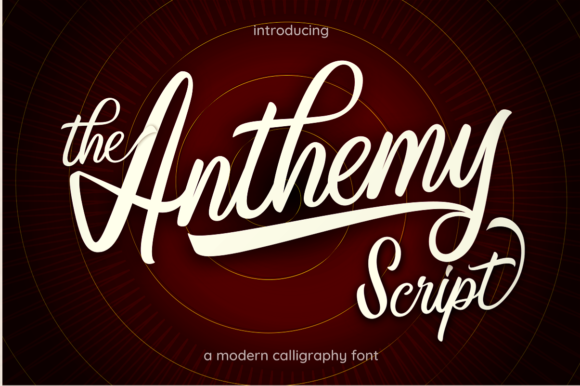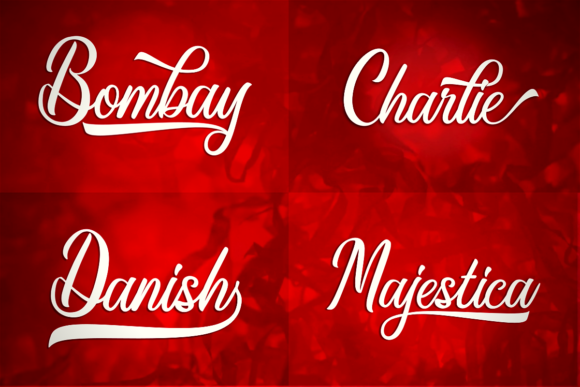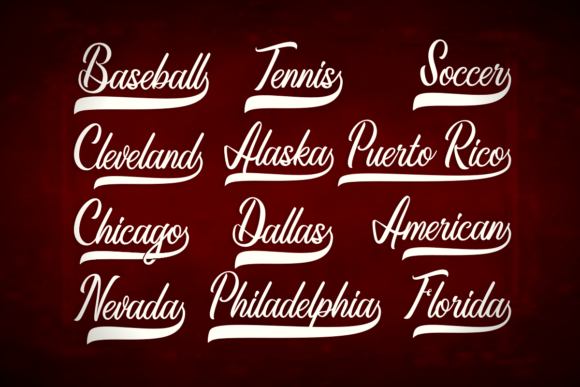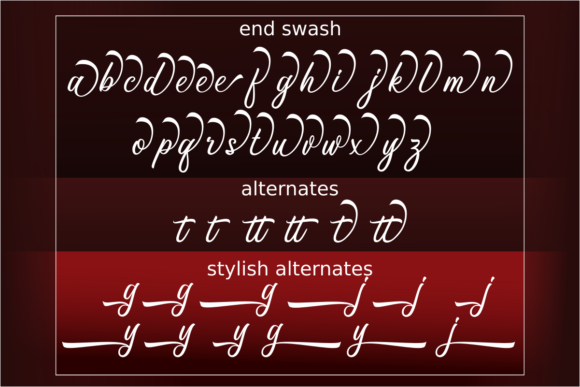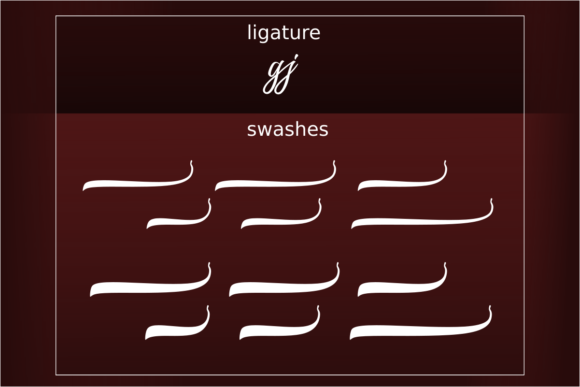
Anthemy Font
About Anthemy Font
Anthemy is a pleasing and assertive handwritten font. This font reads as strong, confident, and dynamic and can add tons of nostalgic character to your designs. Anthemy is PUA encoded which means you can access all of the glyphs and swashes with ease!